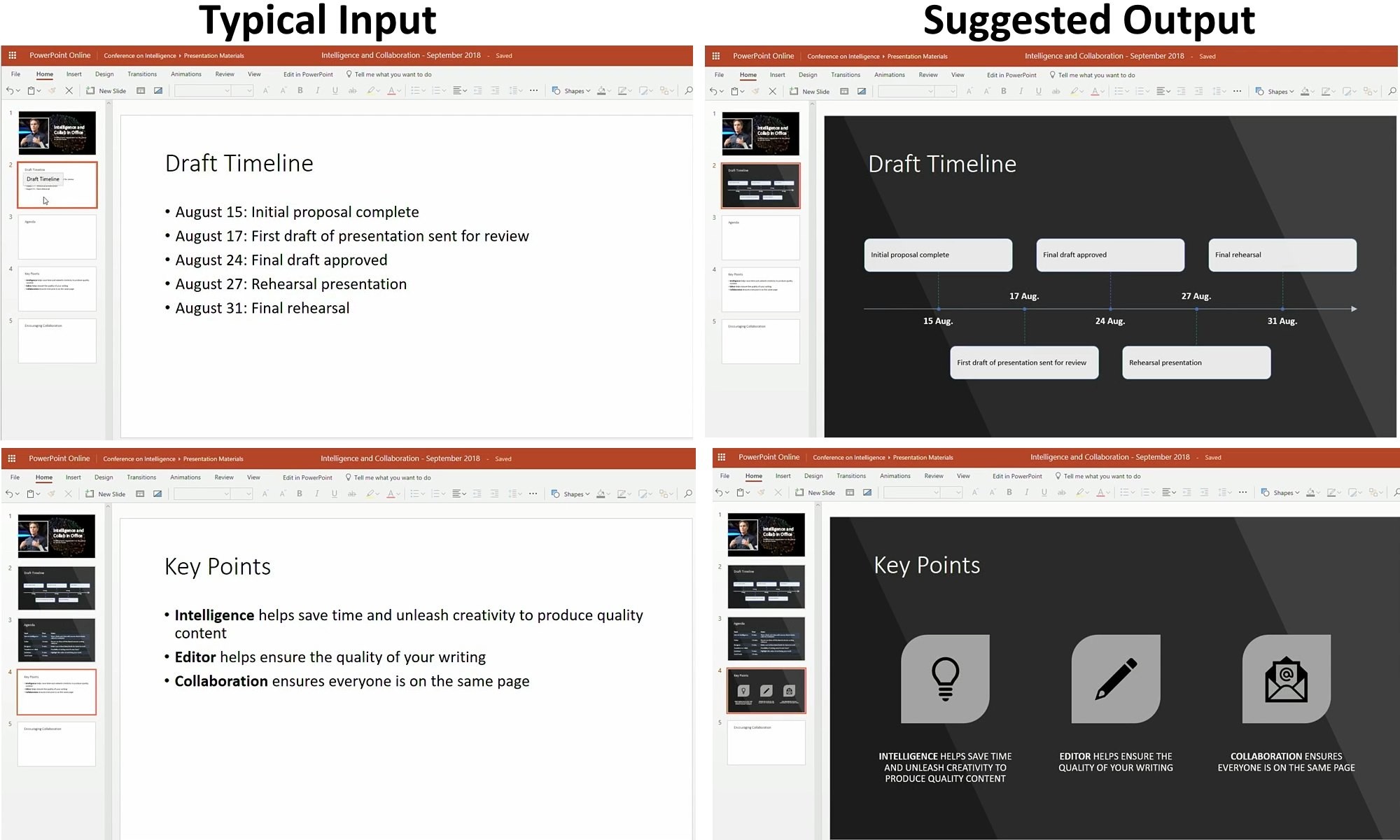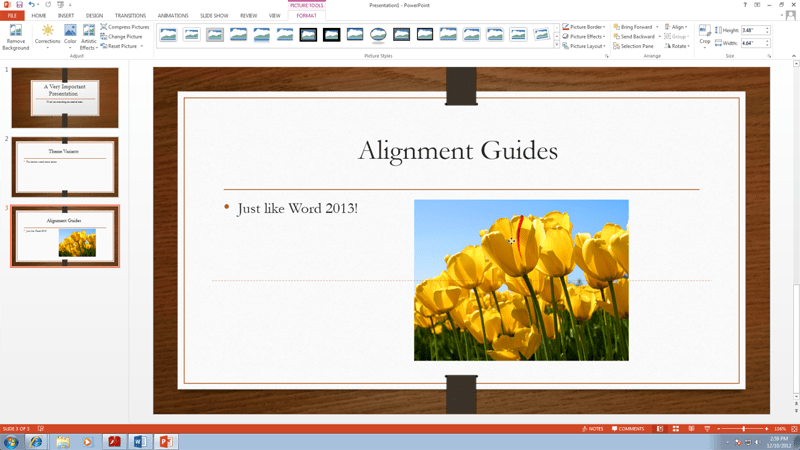
What's The Best Font For Powerpoint
What's The Best Font For Powerpoint. There is a hateful war being waged against the font, comic sans. The best font for your powerpoint presentation is somewhere in this selection, just waiting for you to choose it.
If you are doing a presentation, and you don't care about anything lining up, verdana is a good choice. Lato was originally betrothed to a large corporate client, but they decided to go in another direction, so now it’s back on the public market, and looking for mr right. Calama is a free font that comes with a narrow condensed design.
But It Will Make Your Titles Look Great.
This type of fonts is best not to be used as your body text font. The thumb rule — a larger font size with less text on screen is always good. Army buster is great font when you want to showcase authority.
These Font Styles Are Generally Used, As The Name Suggests, In The Army Or Bureaucratic Institutions (For A Good Reason I Must Add).
One of the best fonts for powerpoint, if you need to include a signature in your design, is the molita font, a beautiful signature script font with an elegant and authentic handwritten feel. The hate that some scientists express about its use in a presentation, would make you think a presenter had used wingdings. Therefore, it is better not to use references and footnotes in the presentation, both belong in the handouts and are no longer recognizable from row 2 anyway.
Lato Was Originally Betrothed To A Large Corporate Client, But They Decided To Go In Another Direction, So Now It’s Back On The Public Market, And Looking For Mr Right.
Verdana, segoe ui, corbel und tahoma. Segoe is pretty similar to verdana and maintains a warm, inviting look, and that’s still spacious and precise on screens. But finding the right font for your powerpoint depends on many factors.
The Best Font For Your Powerpoint Presentation Is One That (1) Makes Your Slides Look Good And (2) Is One That Will Properly Display On All Mac And Pc Versions Of Microsoft Office.
When it comes to fonts, google slides is the most complicating factor because it has a different suite of standard fonts than pc or mac operating systems. But more importantly, keep the text on each slide to. I want to cover some powerpoint font best practices and make sure you are using a font that is the proper size and shape for you.
This Type Of Fonts Is Best Not To Be Used As Your Body Text Font.
The best font for your powerpoint presentation is somewhere in this selection, just waiting for you to choose it. These are the modern and smooth typefaces that you'll find in most presentations. These are what are commonly refereed to as safe fonts.